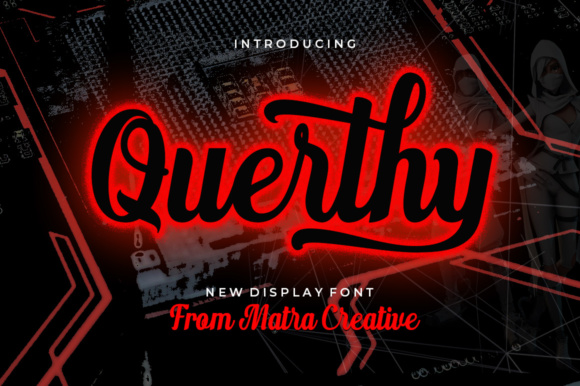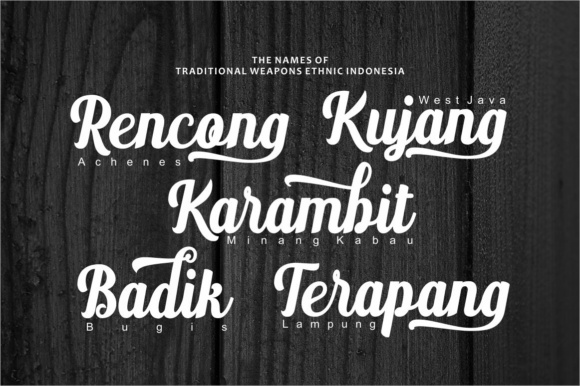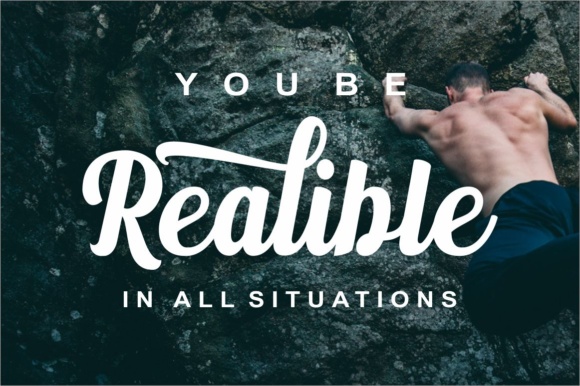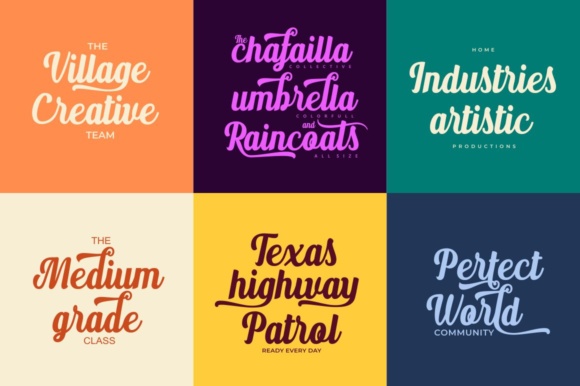
About Querthy Script Font
Querthy is an brush script font based on the expression of real handwriting. Querthy lets you transform type into an exciting and beautiful piece of work. A hand-lettered look adds a real human touch to things and comes along with a lot of loving details.
This handwritten font has lots of alternates that give you the possibility to write your texts almost like real handwriting with all the charming imperfections and variations that a real handwriting has. Querthy will work perfectly for fashion, e-commerce brands, trend blogs, wedding boutiques or any business that wants to appear upscale and chic.